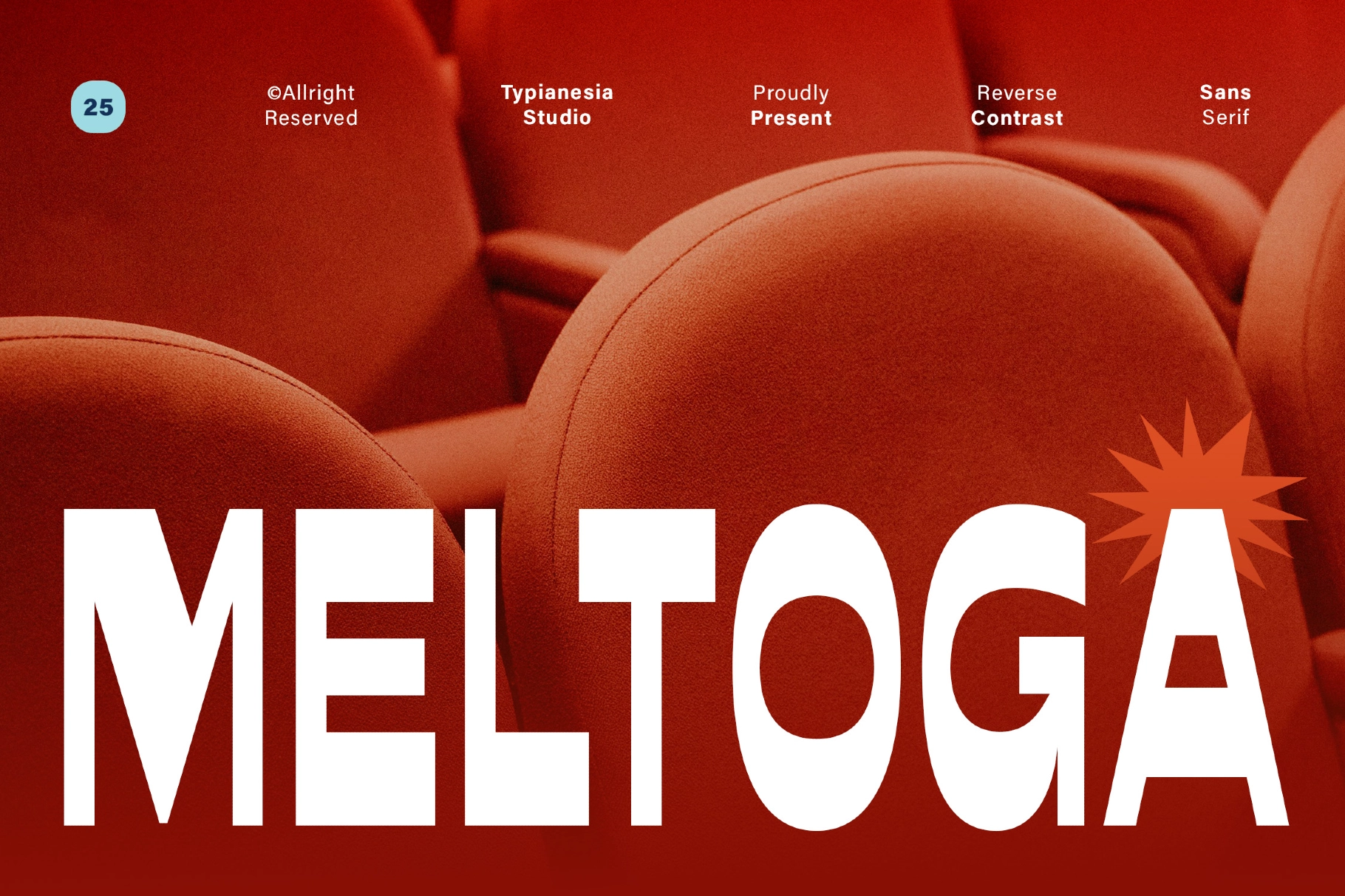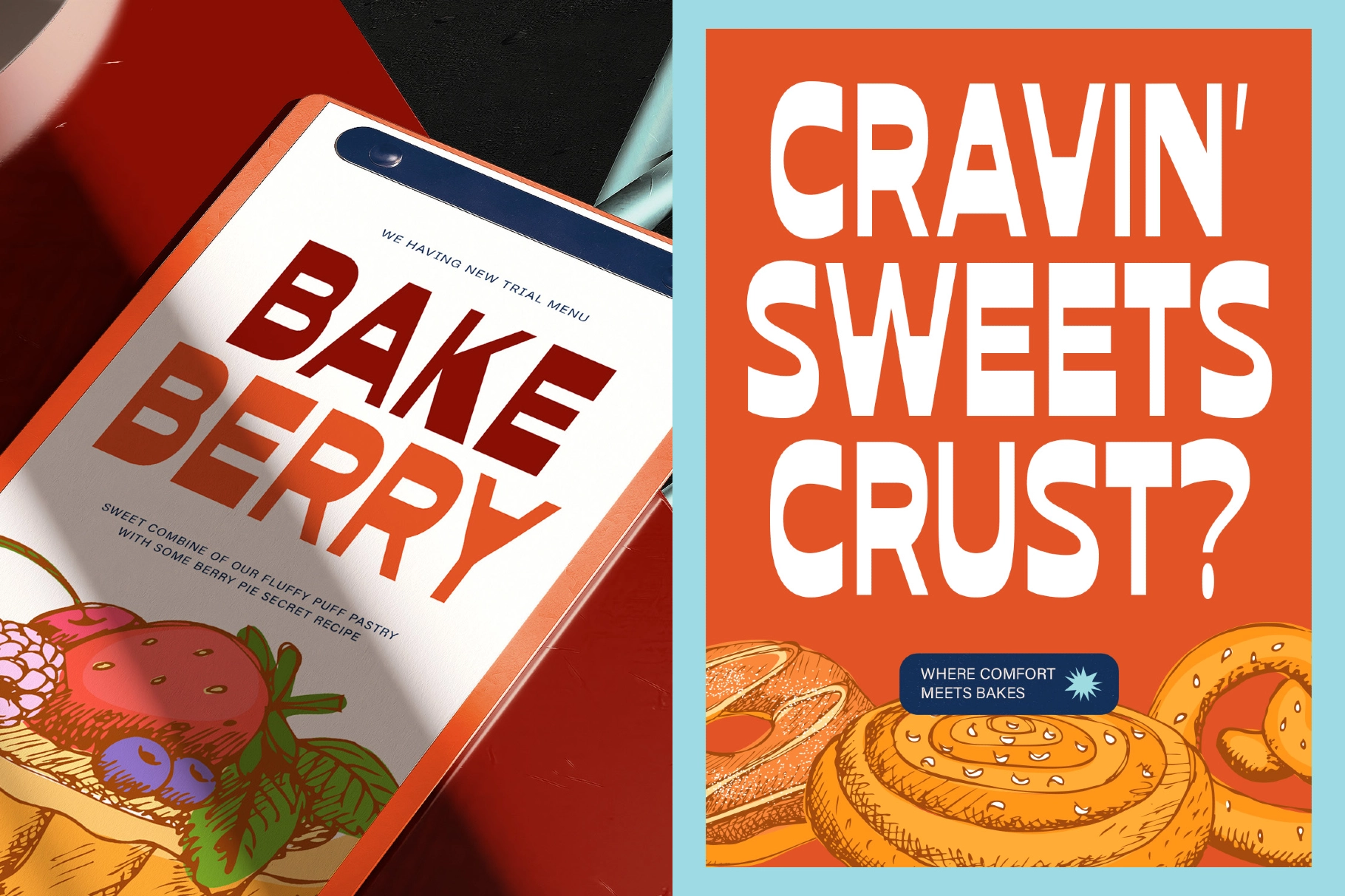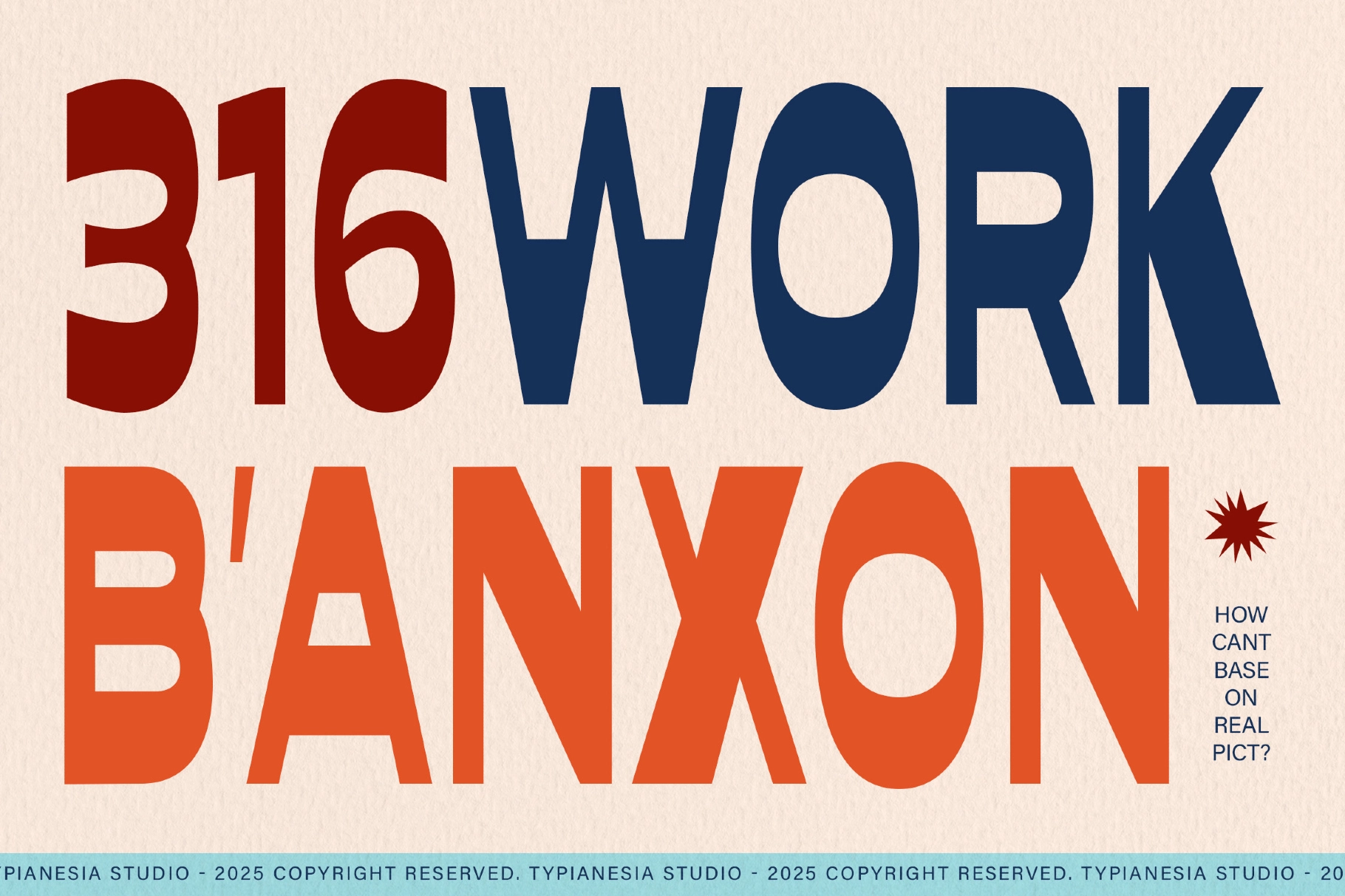
Meltoga - Bold Retro Condensed Sans
Meltoga
Meltoga - Bold Retro Condensed Sans is a striking display typeface inspired by the energetic spirit of 1980s graphic design. With its tall condensed structure and distinctive reverse contrast, Meltoga delivers a bold visual rhythm that feels both nostalgic and confidently modern.
Designed to command attention, this font is perfect for posters, packaging, logos, headlines, and standout branding. Meltoga combines playful retro character with contemporary clarity, ensuring your typography feels expressive, strong, and full of personality.
- Bold, condensed display sans serif
- Distinctive reverse contrast styling
- Strong vertical emphasis for impactful headlines
- Ideal for posters, packaging & logo design
- Perfect for hospitality branding (cafes, coffee shops, restaurants)
- Retro-inspired with a clean modern finish